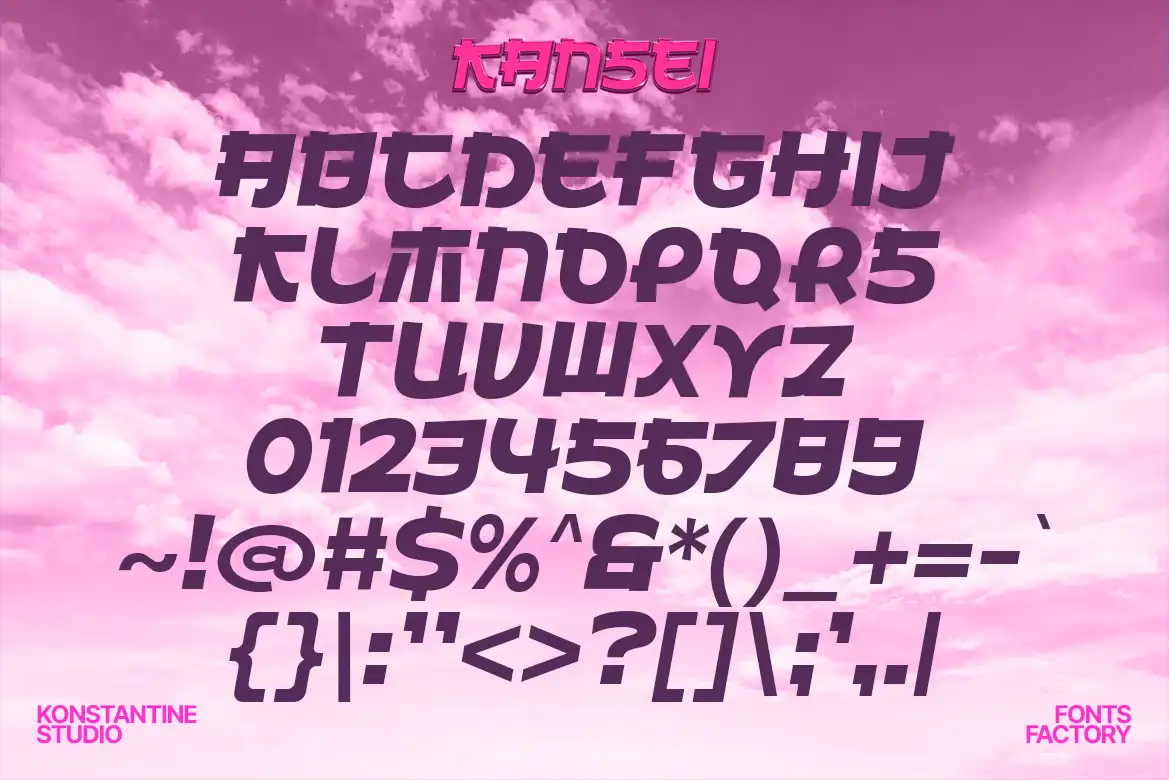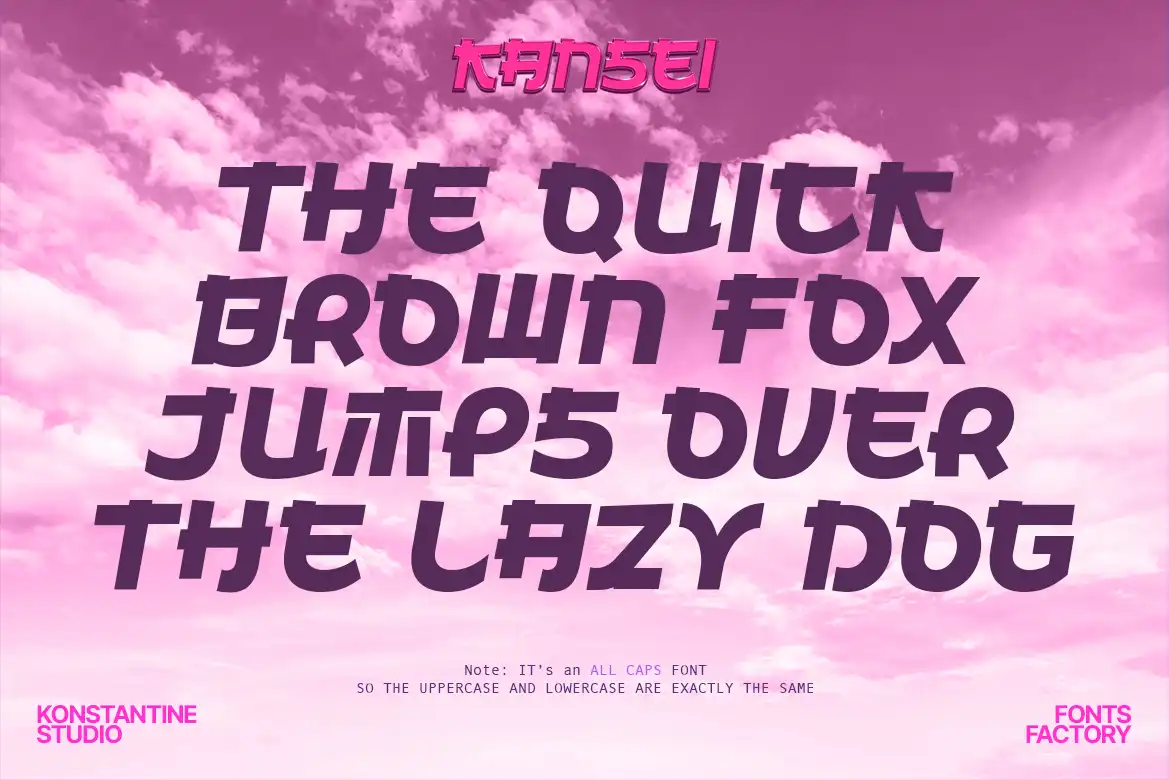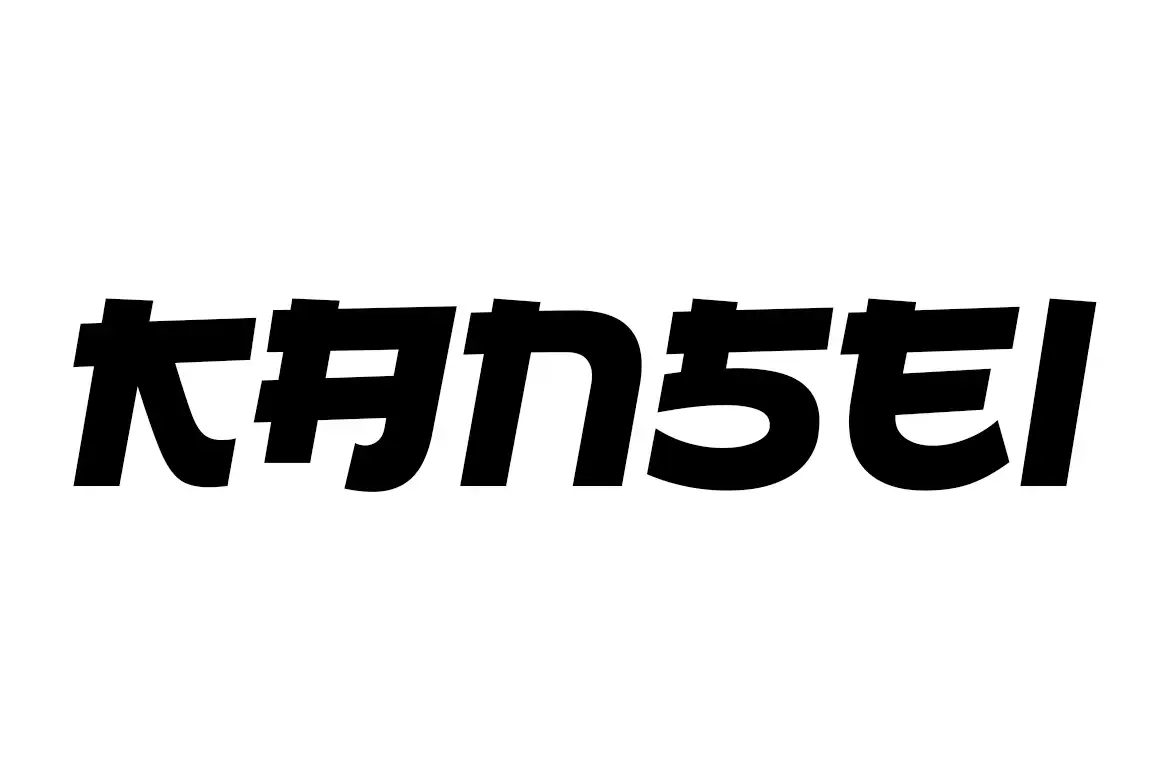
Say hello to Kansei – Japanese Y2K Fonts! 🎉 This delightful digital download brings you a unique blend of Japanese vibes and the nostalgic flair of the Y2K era, perfect for all your creative projects. With instant access, you can start designing right away! 🖌️
Kansei is an ALL CAPS font that captures the essence of Japanese typography while celebrating the quirky aesthetics of the early 2000s. Whether you’re crafting a logo, designing merchandise, or creating social media posts, this font adds a touch of charm and character to your work. The versatility of Kansei makes it an essential addition to any designer’s toolkit, especially for those who appreciate the beauty of kansei japanese culture. 🌸
- Unique Style: The combination of Japanese aesthetics and Y2K influences creates a standout typeface that grabs attention.
- Versatile Usage: Ideal for logos, branding, game assets, posters, and more, Kansei fits seamlessly into various projects.
- All Caps Design: This font maintains uniformity with uppercase and lowercase letters, ensuring your text looks cohesive and bold.
This font is a fantastic choice for:
- Graphic designers looking to add a unique touch to their work.
- Brand creators wanting to infuse cultural elements into their designs.
- Social media managers aiming for eye-catching posts.
- Anyone with a love for kansei japanese meaning and aesthetics!